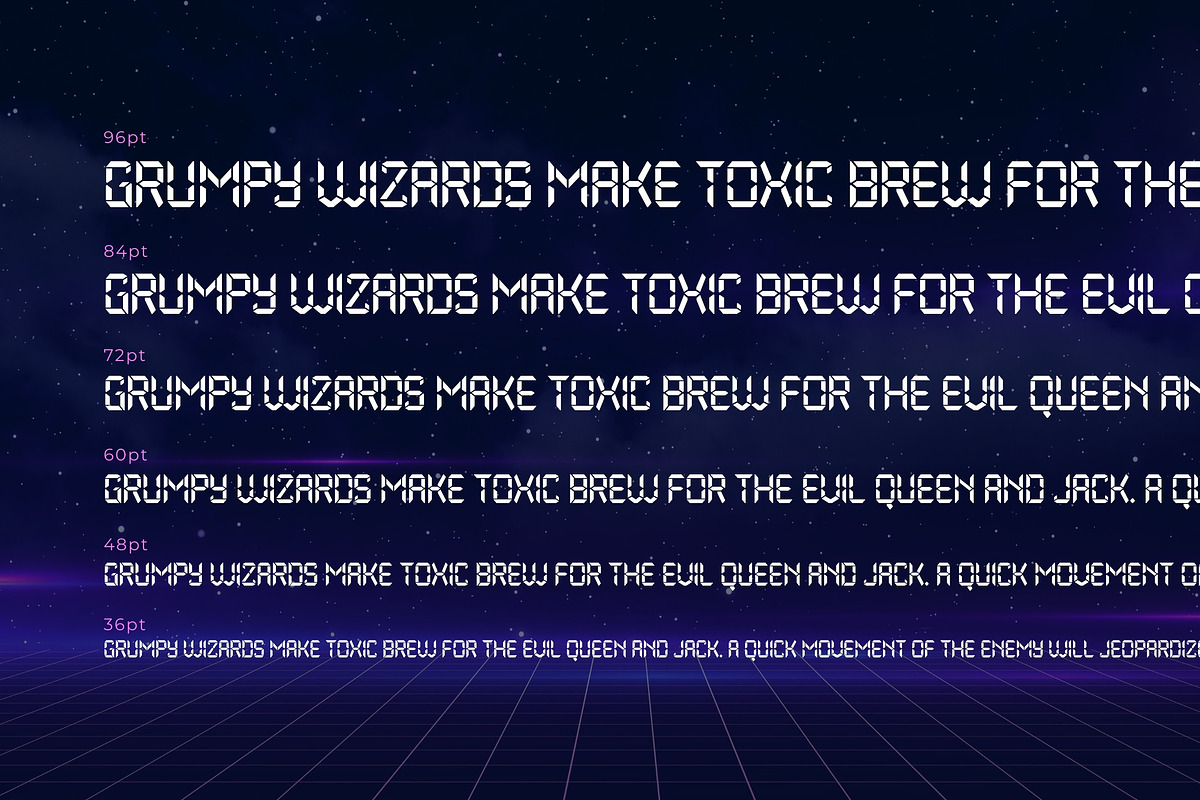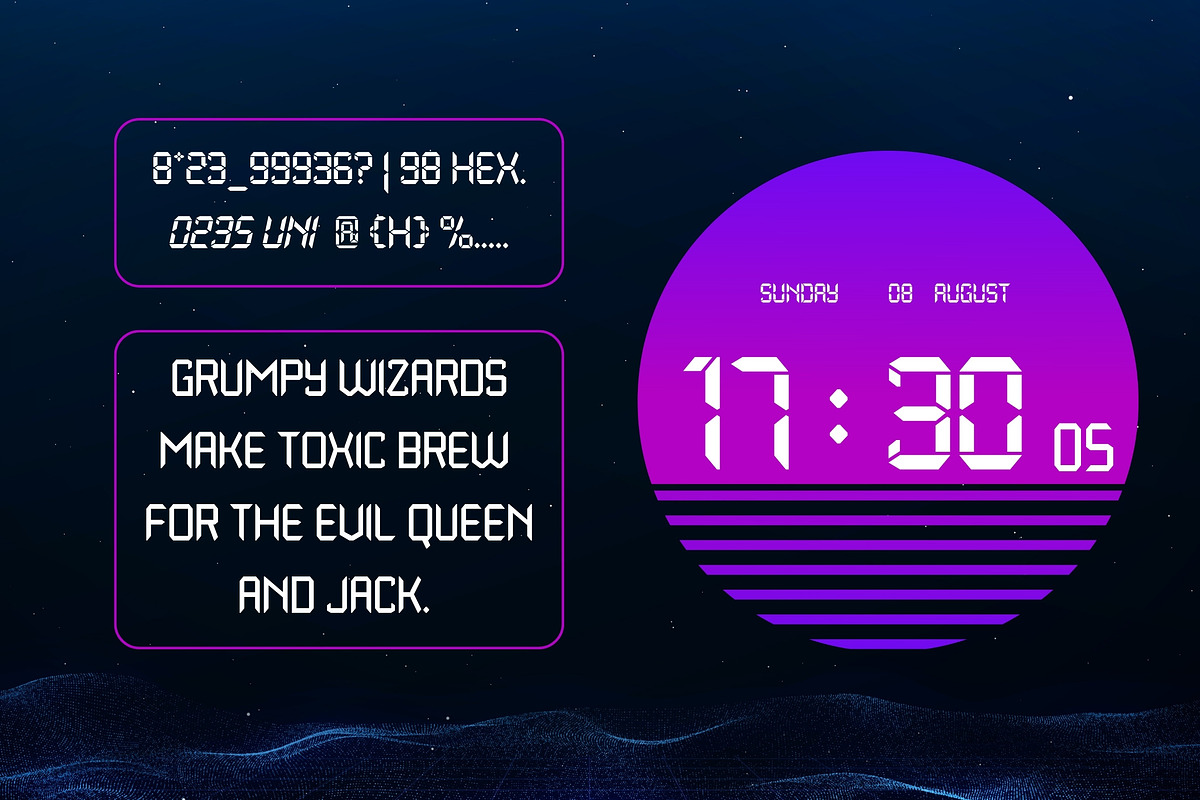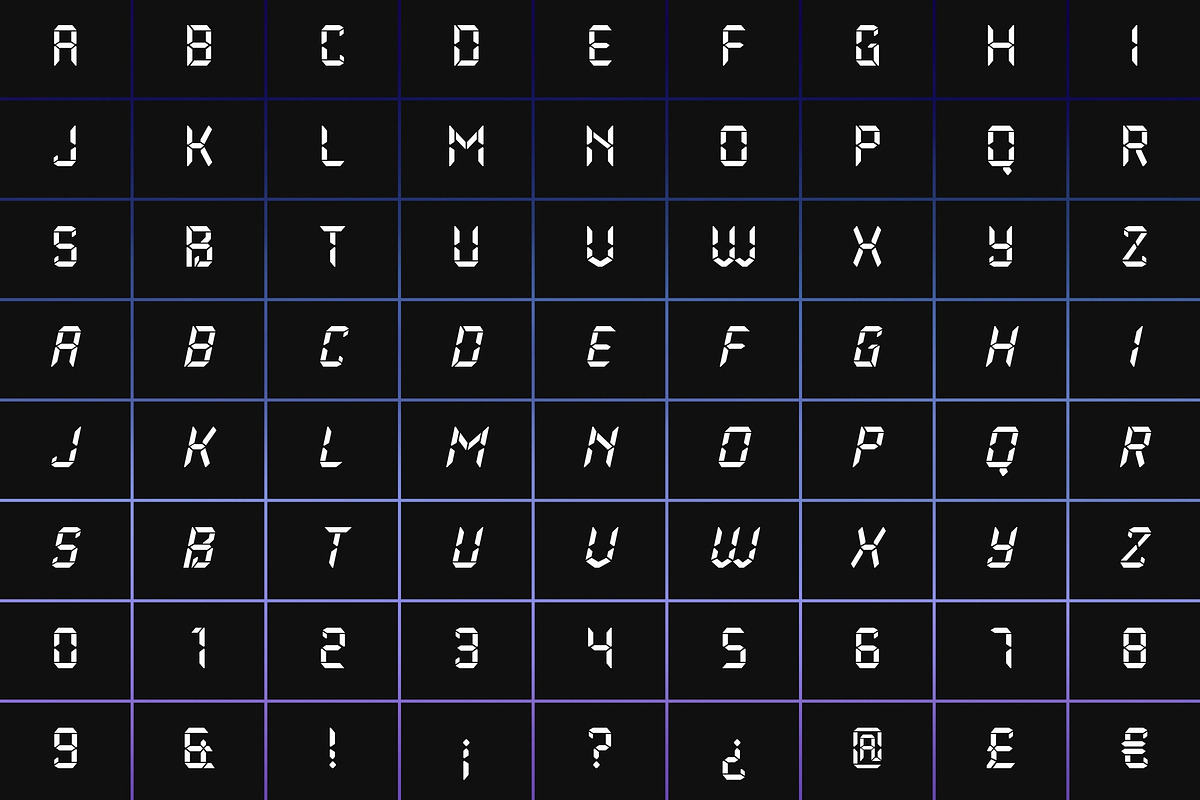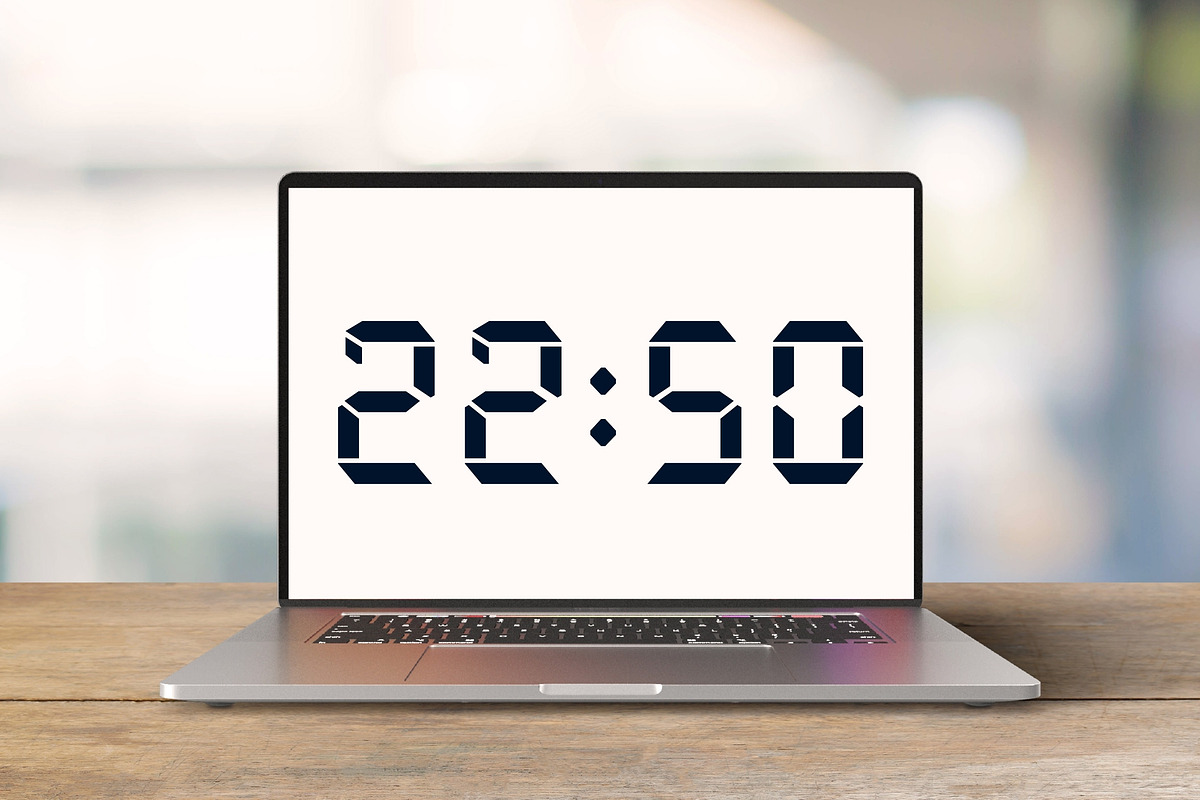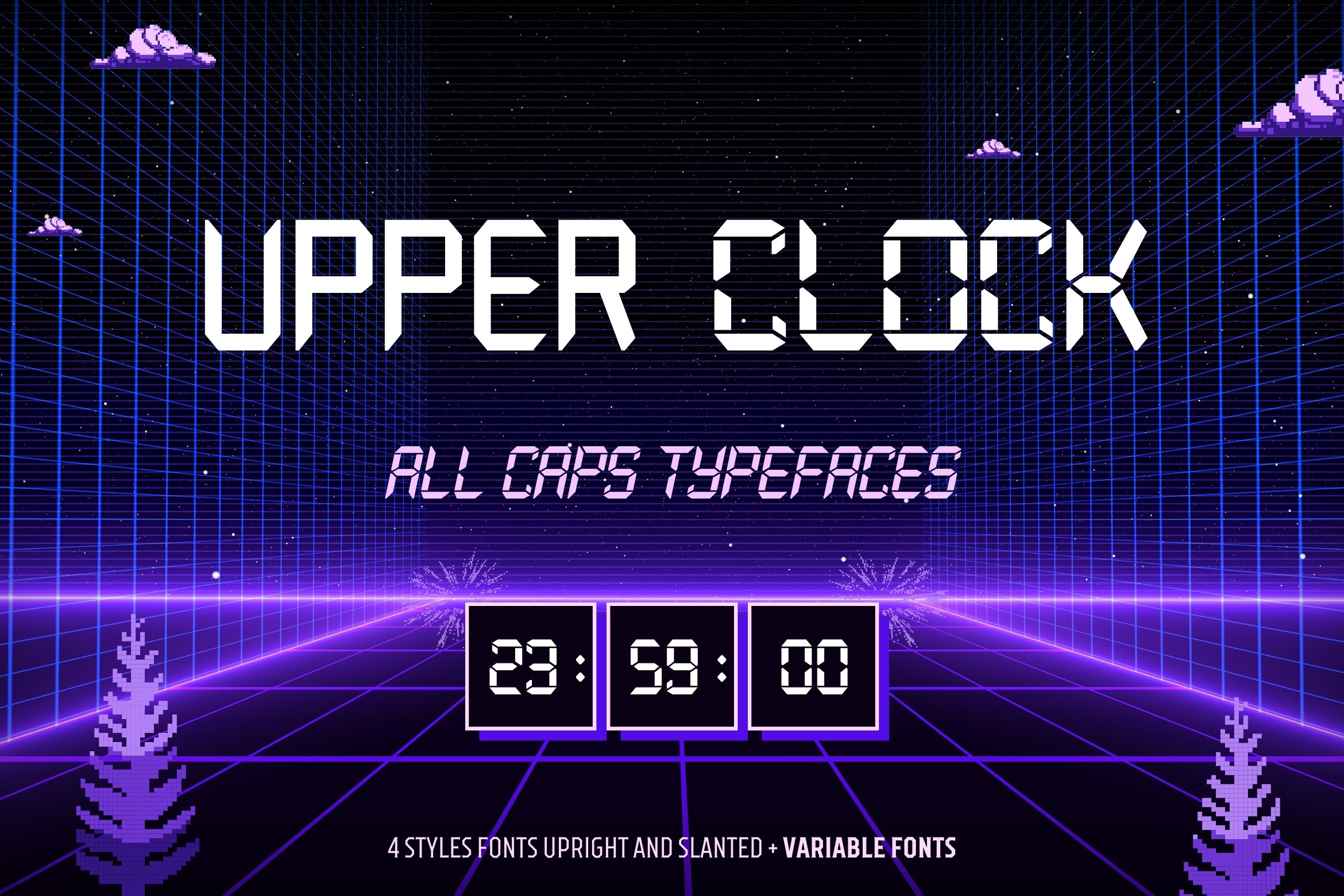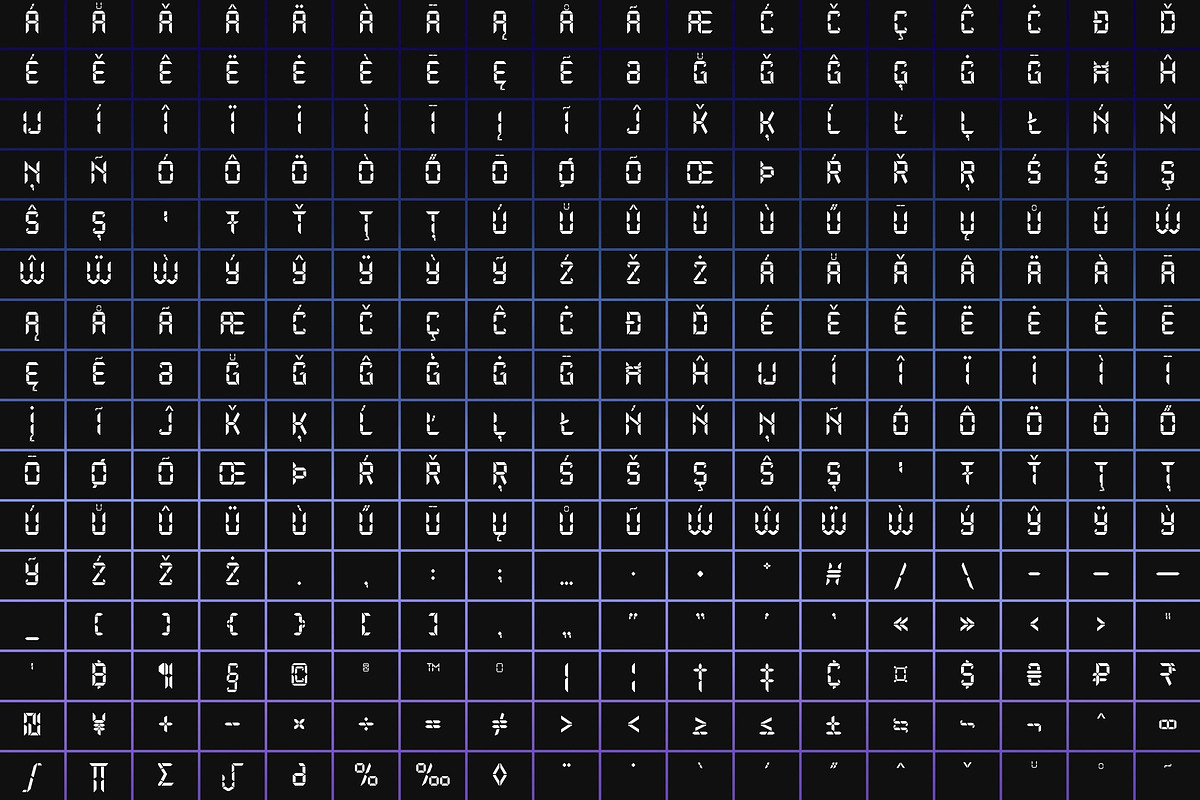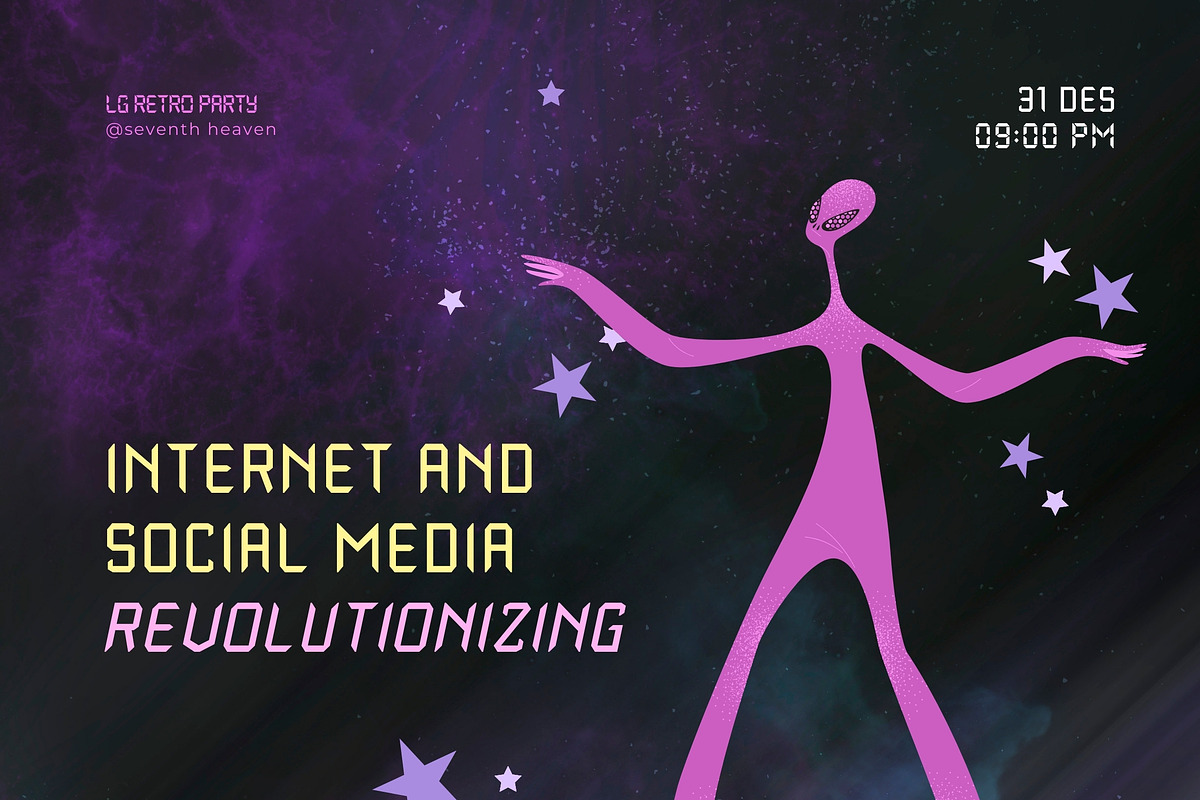
Upper Clock Digital 4 All-cap Font
Introducing Upper Clock Typeface
Your ticket to a world of typographic innovation, drawing inspiration from the sleek design of the ETCH Clock. Prepare to explore a myriad of creative possibilities for your Display Text with this cutting-edge typeface.
Tired of mundane, uninspiring fonts that lack personality and flair? Upper Clock Typeface is here to infuse your digital designs with the vivacity of Retro Flat, the whimsy of Memphis, and the evocative nostalgia of Modern Nostalgia.
Upper Clock isn't merely a typeface; it's your ultimate solution to typographic challenges. This versatile tool is your gateway to crafting visually stunning, one-of-a-kind designs within the realm of Display Text. As you implement Upper Clock Typeface, watch in awe as your typographic dilemmas seamlessly transform into relics of the past. Take your design endeavours to new heights with Upper Clock Typeface today!